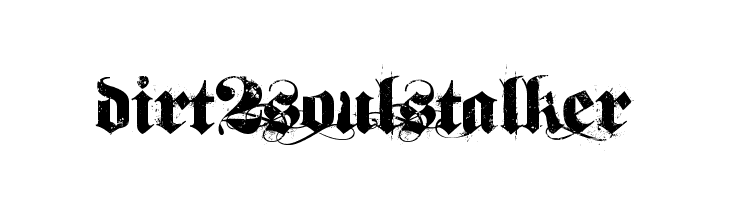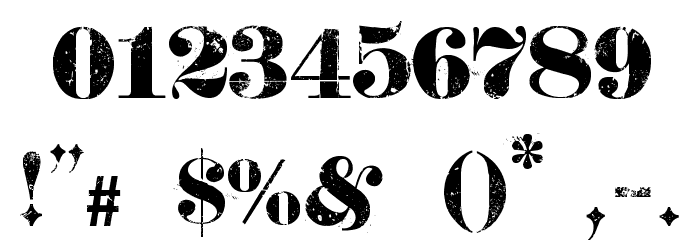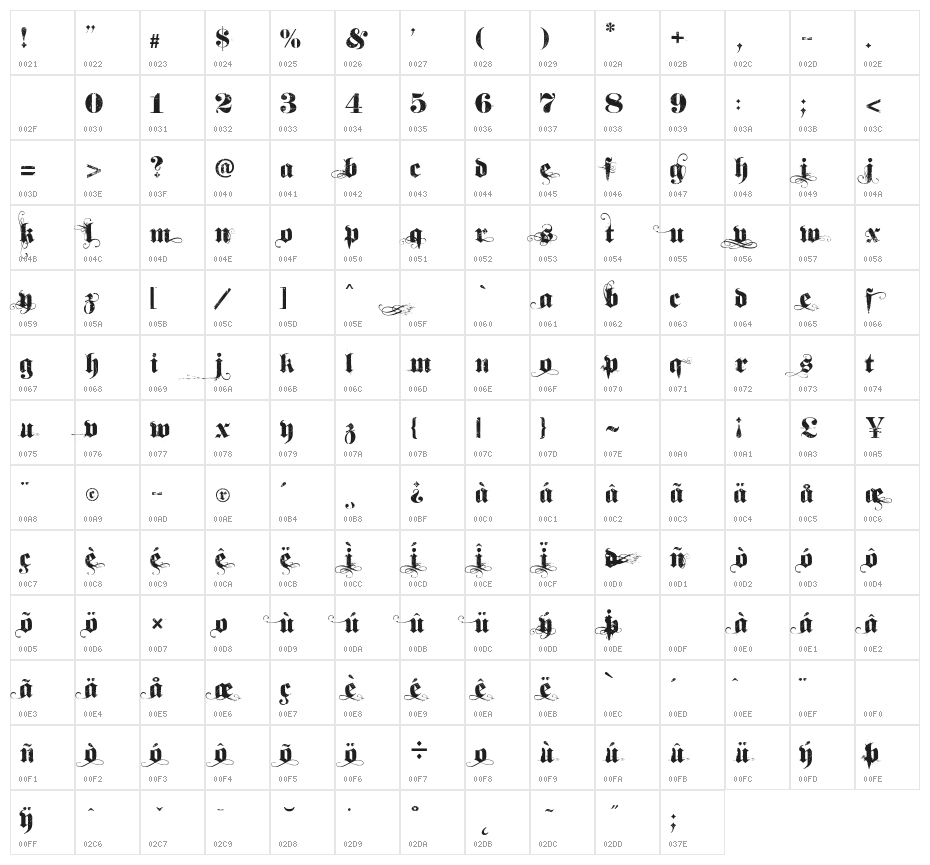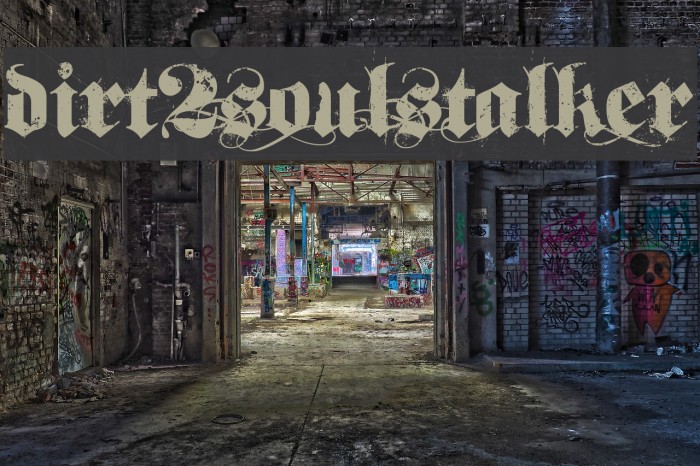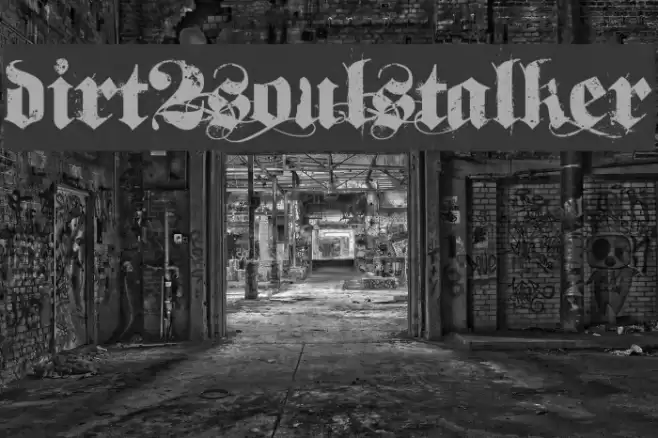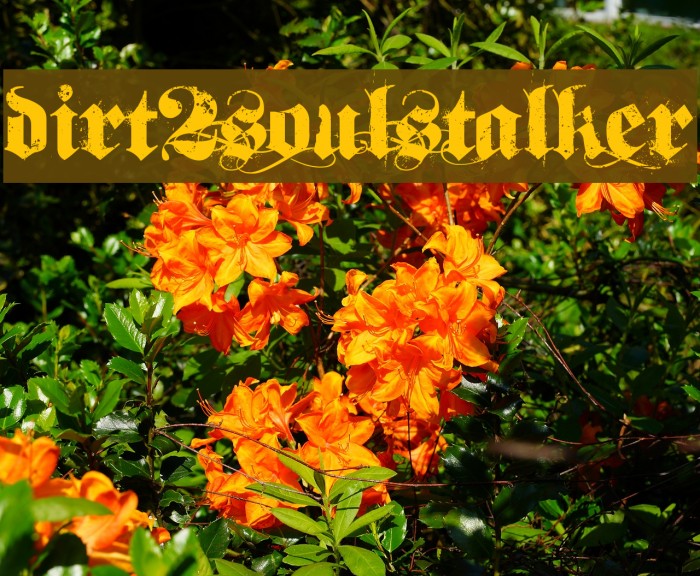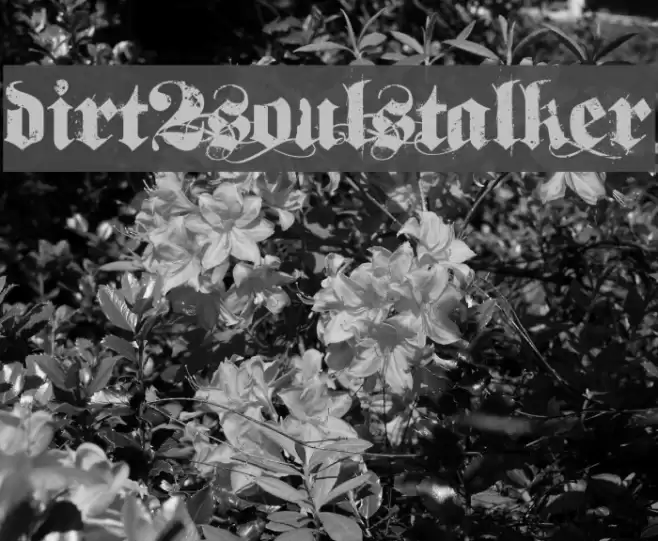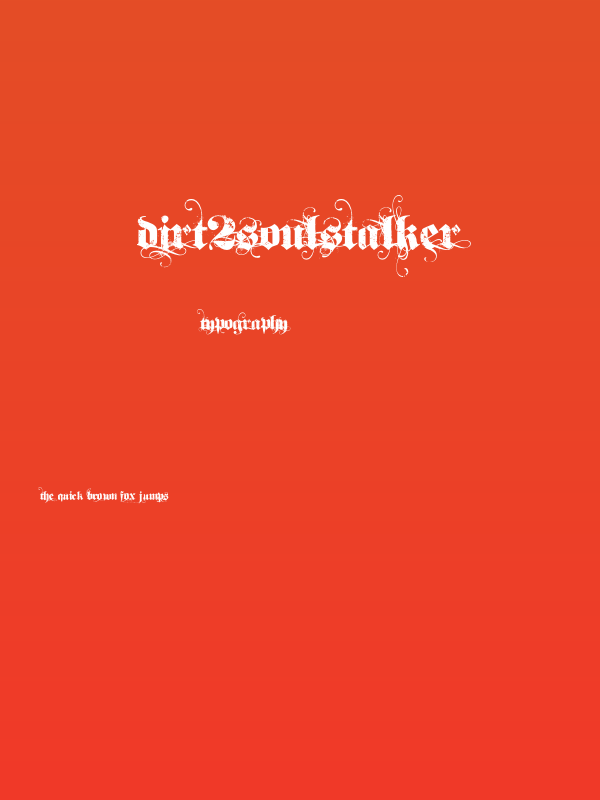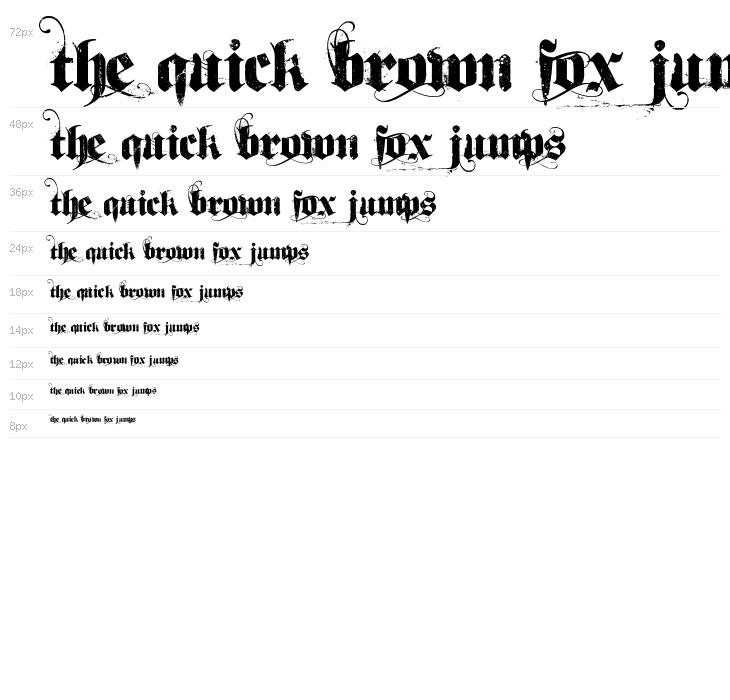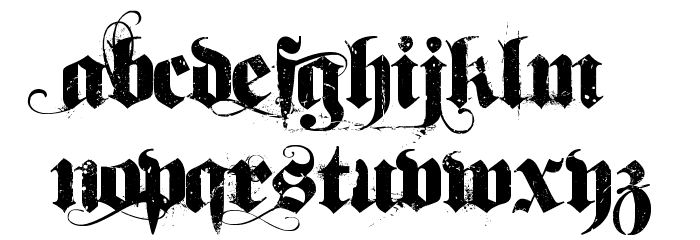
Dirt2SoulStalker Font
Dirt2SoulStalker Description
This font exudes a gothic and grunge aesthetic, characterized by its intricate and elaborate design. The letters are adorned with flourishes and distressed textures, giving them a worn and edgy appearance. The uppercase and lowercase letters maintain a consistent style, with sharp edges and dramatic curves. The numerals and special characters follow the same ornate and distressed theme, making the font suitable for projects that require a bold and artistic touch. Its unique style captures attention and adds a sense of mystery and drama to any design.
| Proposed Projects | Ideal for album covers, posters, tattoos, and any design needing a dramatic and artistic flair. |